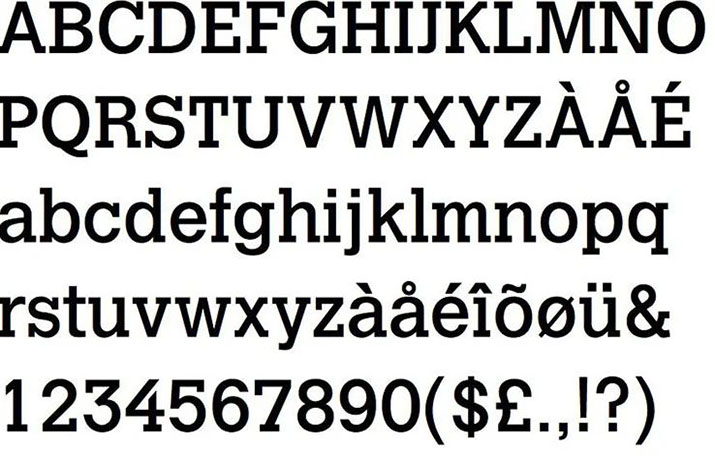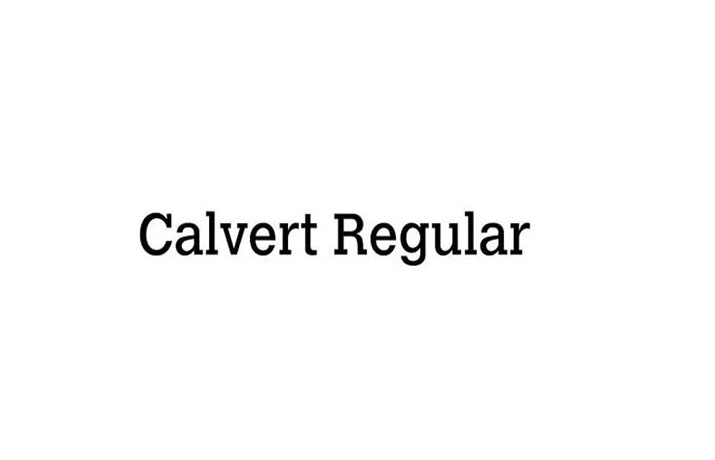
Calvent Font is an attractive slab serif typeface with bold and clear letterforms. It was designed by Margaret Calvert and published by Monotype.
Its unique serif design distinguishes this typeface. Many figures have only half serifs, for example, A, M, and X, which lends the typeface its character.
Due to its timelessly modern, static, and stable, it is perfectly suited for various purposes such as headlines, signage, posters, headers, titles, branding, web design, and more.
“Calvent typeface comes in three weights: regular, bold, and light. This font contains 253 unique glyphs and 2 ligatures. Moreover, it also supports 68 multilingual languages.”
This font supports 68 languages.